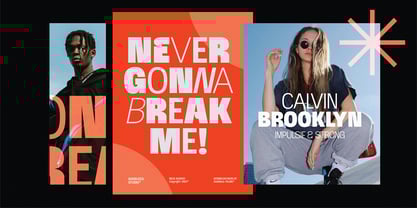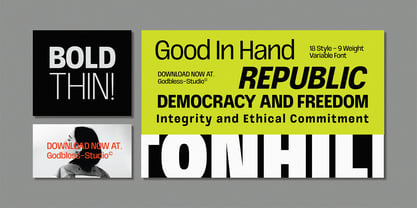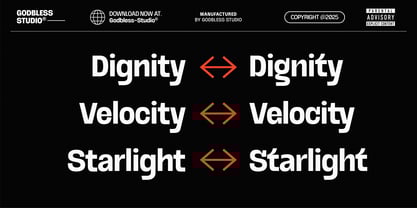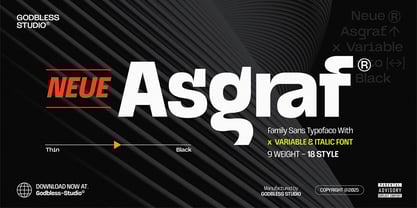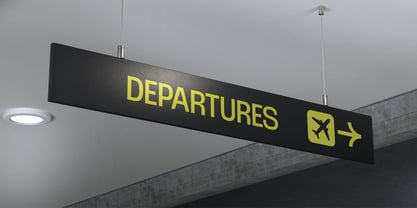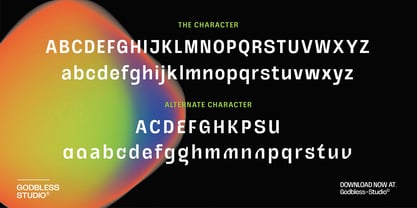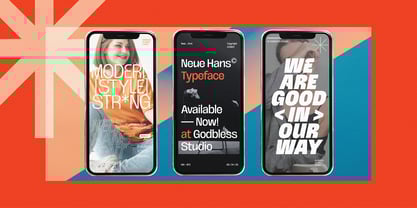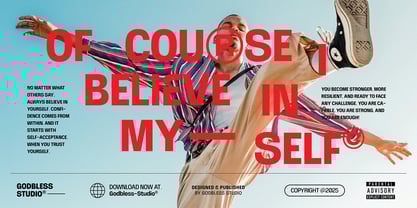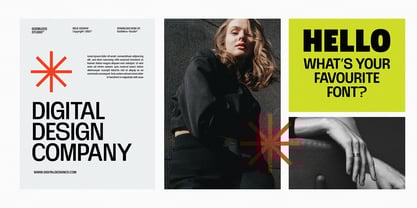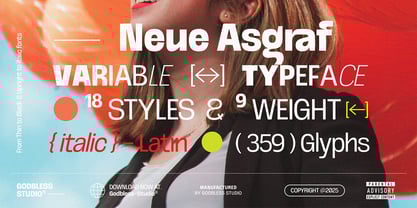
Neue Asgraf
by Godbless Studio
The Neue Asgraf Font Family was designed by Heri Juniawan and published by Godbless Studio. Neue Asgraf contains 18 styles and family package options. More about this family
Introducing Neue Asgraf – A Modern Classic Sans for Bold Creatives
Looking for a typeface that speaks elegance, clarity, and impact all at once? Meet Neue Asgraf — a beautifully crafted sans serif font family designed to elevate your work across all mediums. Whether you're designing sleek brand identities or crafting editorial layouts, Neue Asgraf delivers unmatched versatility with a bold, modern edge.
Why Neue Asgraf is Your New Go-To Font
🔥 Striking Elegance, Effortless Precision
Neue Asgraf boasts smooth curves, sharp lines, and perfectly balanced letterforms that exude professionalism while maintaining a unique personality. This typeface isn’t just clean — it’s captivating.
💼 Built for Versatility
With 9 weights and 18 distinct styles, Neue Asgraf adapts to any design need — from bold headlines to minimal captions. Use it in:
• Branding & Logos
• Editorial & Magazine Layouts
• Posters, Flyers & Book Covers
• Web & App Interfaces
• Packaging Design
• Sublimation & Merch Projects
🧠 Designed with Designers in Mind
💡 Modern Style, Timeless Impact
Inspired by the clean functionality of Swiss design and the elegance of modern minimalism, Neue Asgraf brings timeless appeal with a contemporary twist. It’s not just a font — it’s your visual voice.
Key Features:
• Variable font family: 9 Weights / 18 Styles
• Full language support (Latin-based)
• Kerning & Ligatures finely tuned
• Ready for print & digital
• Perfect for modern and minimalist designs
🎯 Perfect for Creatives Who Want to Stand Out
Whether you're a brand designer, content creator, UX/UI designer, or a business owner looking for premium typography, Neue Asgraf helps you create work that commands attention and leaves a lasting impression.
Designers: Heri Juniawan
Foundry: Godbless Studio